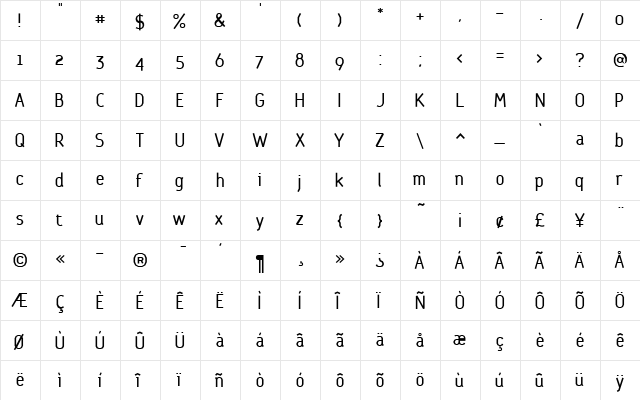
Dubius Book Font Preview
Dubius Book
Dubius Book Font Details
| Style | Book |
Design Context for Dubius Typeface
Dubius is a composed and adaptable typeface that performs quietly and consistently across a wide range of design contexts.